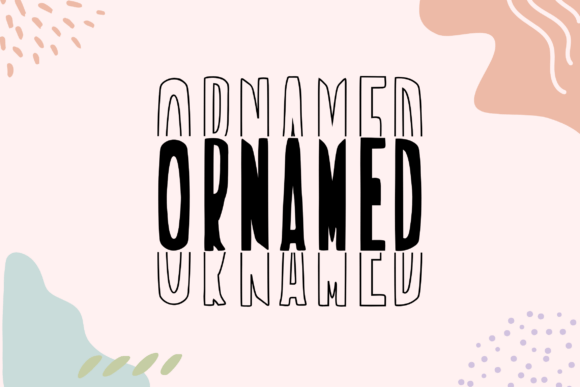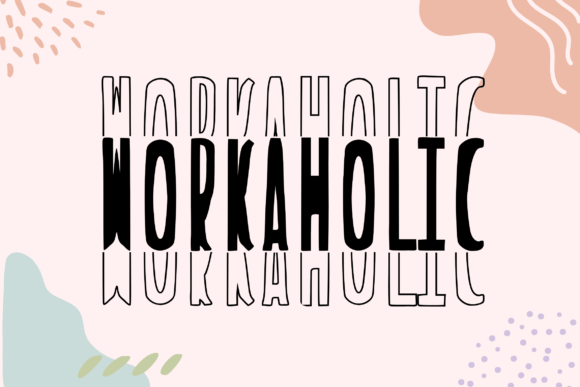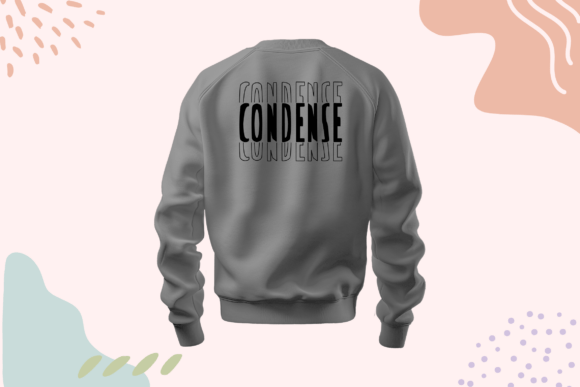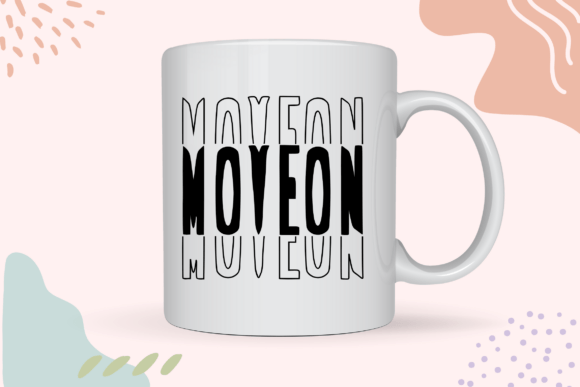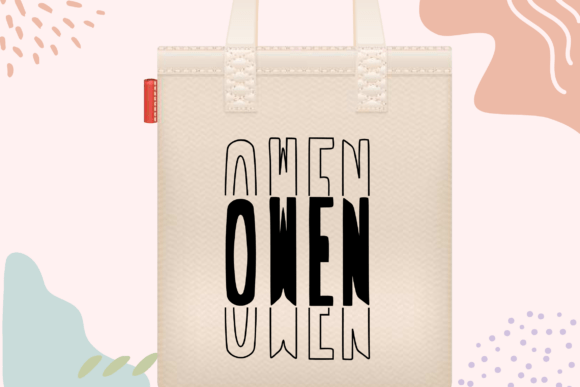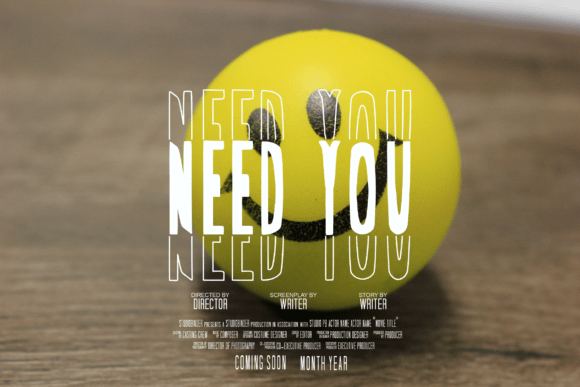
Introduction to Novox Condense Stacked Font
Novox Condense Stacked – Slim & Bold Modern Display Font Novox Condense Stacked is a tall, narrow, and impactful display font designed in a stacked format for maximum vertical presence.
With its clean lines and condensed form, this typeface is perfect for space-conscious layouts while maintaining strong visual hierarchy Ideal for editorial headlines, fashion branding, sports designs, posters, and modern logos, Novox Condense Stacked delivers sophistication with edge.
Key Features of Novox Condense Stacked Font
Why Choose Novox Condense Stacked Font?